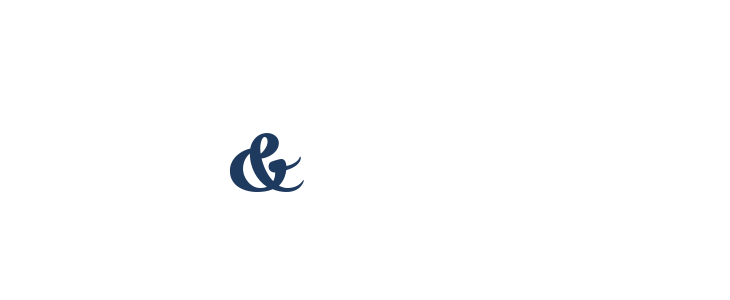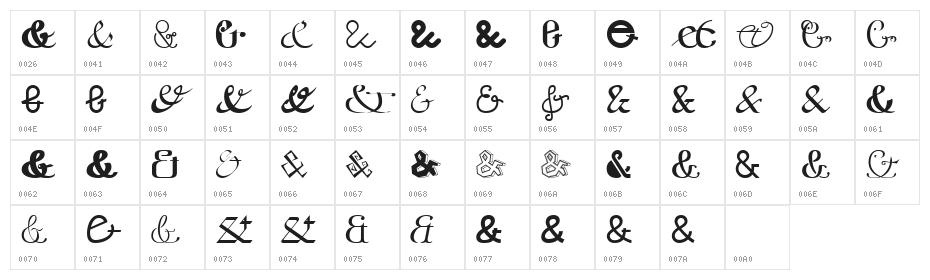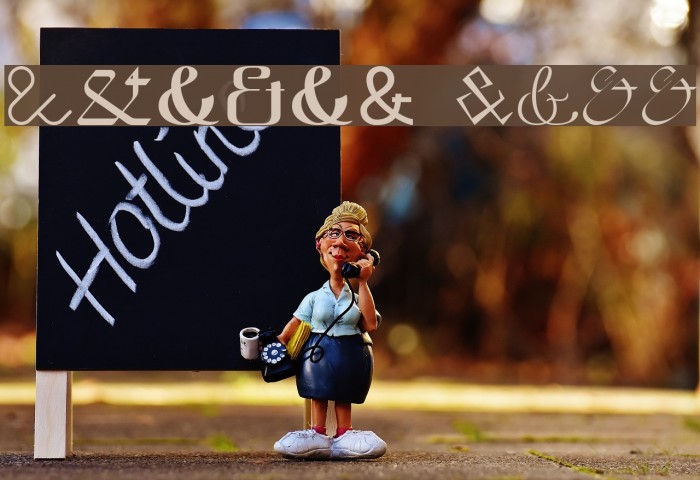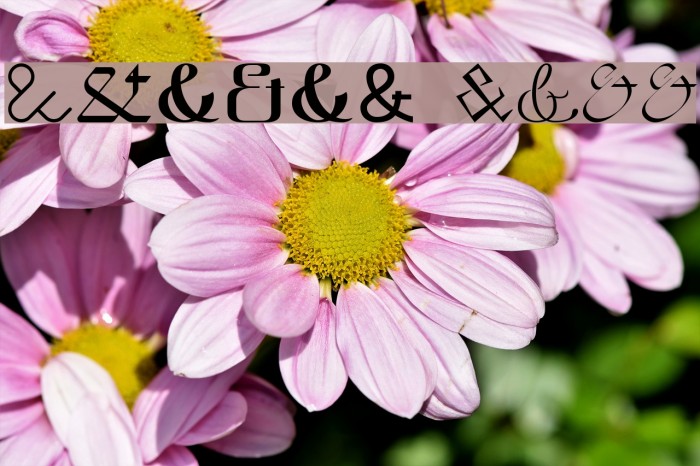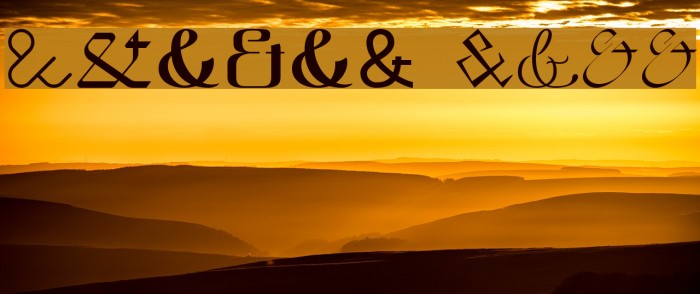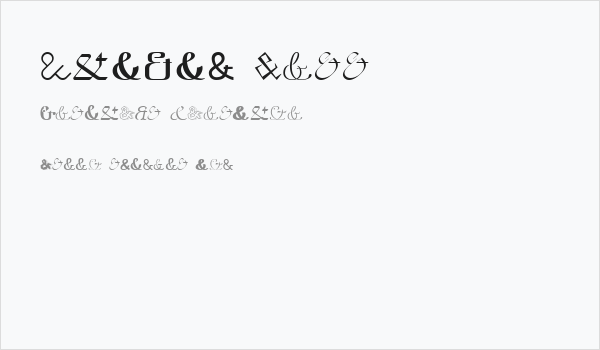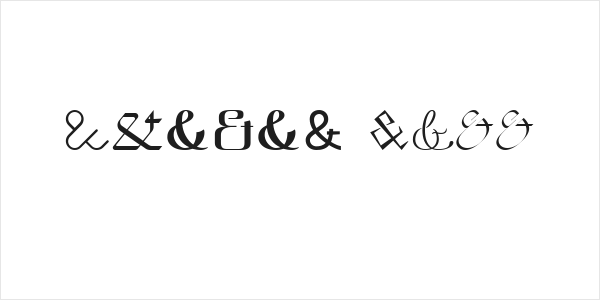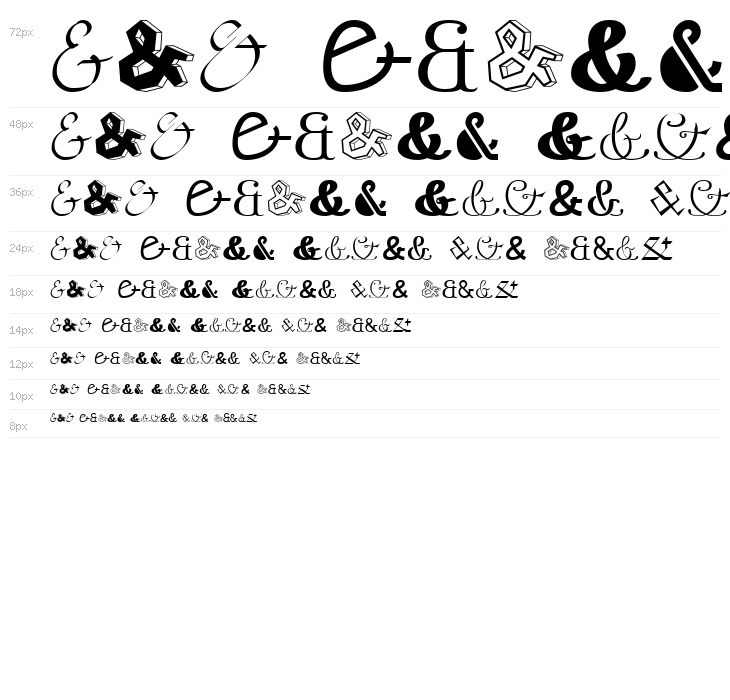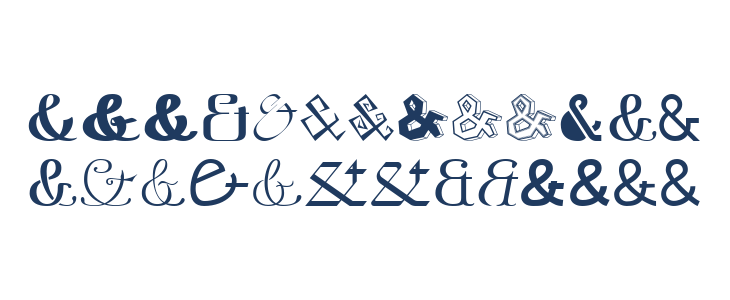
This collection showcases a diverse array of ampersand symbols, each with unique stylistic elements. The designs range from elegant and flowing to bold and geometric, offering a wide spectrum of visual appeal. Some ampersands feature intricate loops and swirls, reminiscent of calligraphic styles, while others are more modern and minimalistic, with clean lines and sharp angles. The variety in stroke thickness and curvature provides a rich tapestry of options for designers seeking to add a distinctive touch to their projects. This assortment is ideal for creative applications where the ampersand serves as a focal point or decorative element.
| Overall Style | Diverse |
| Use Case | Logos, Decorative elements, Invitations |
| Proposed Projects | Ideal for branding, logo design, wedding invitations, and decorative typography projects. |